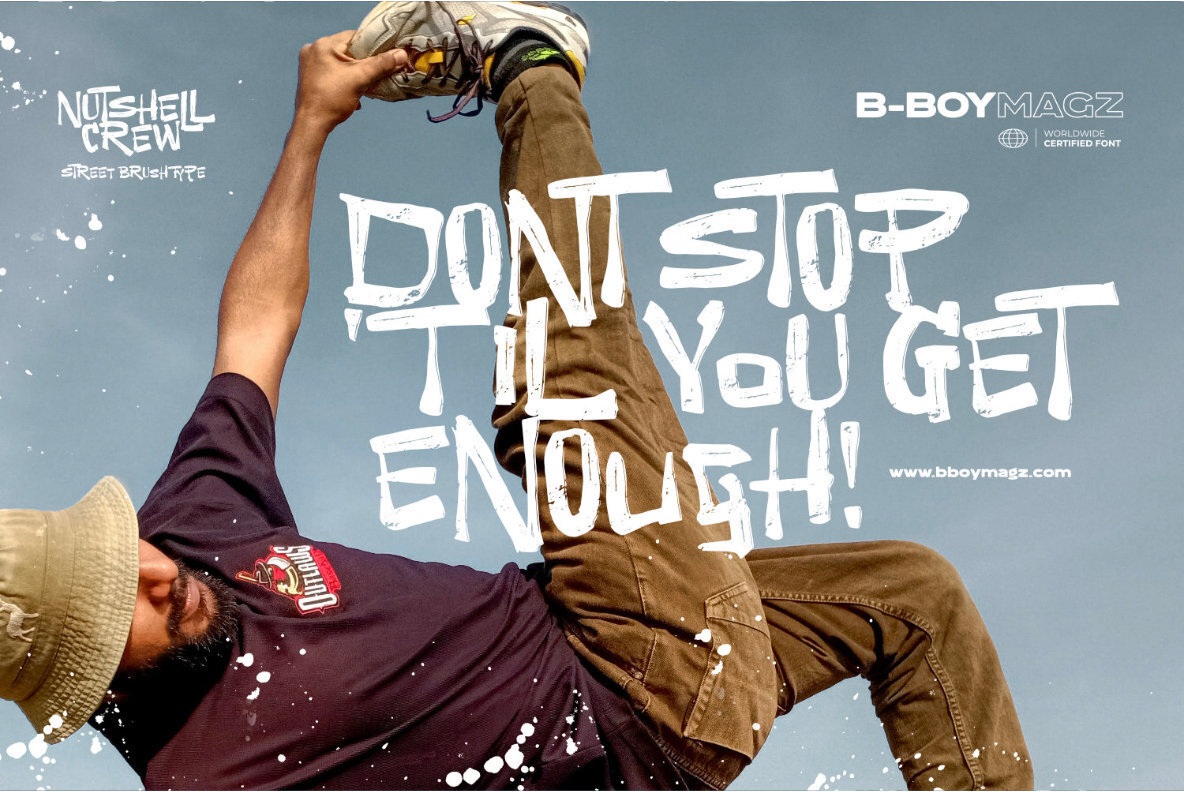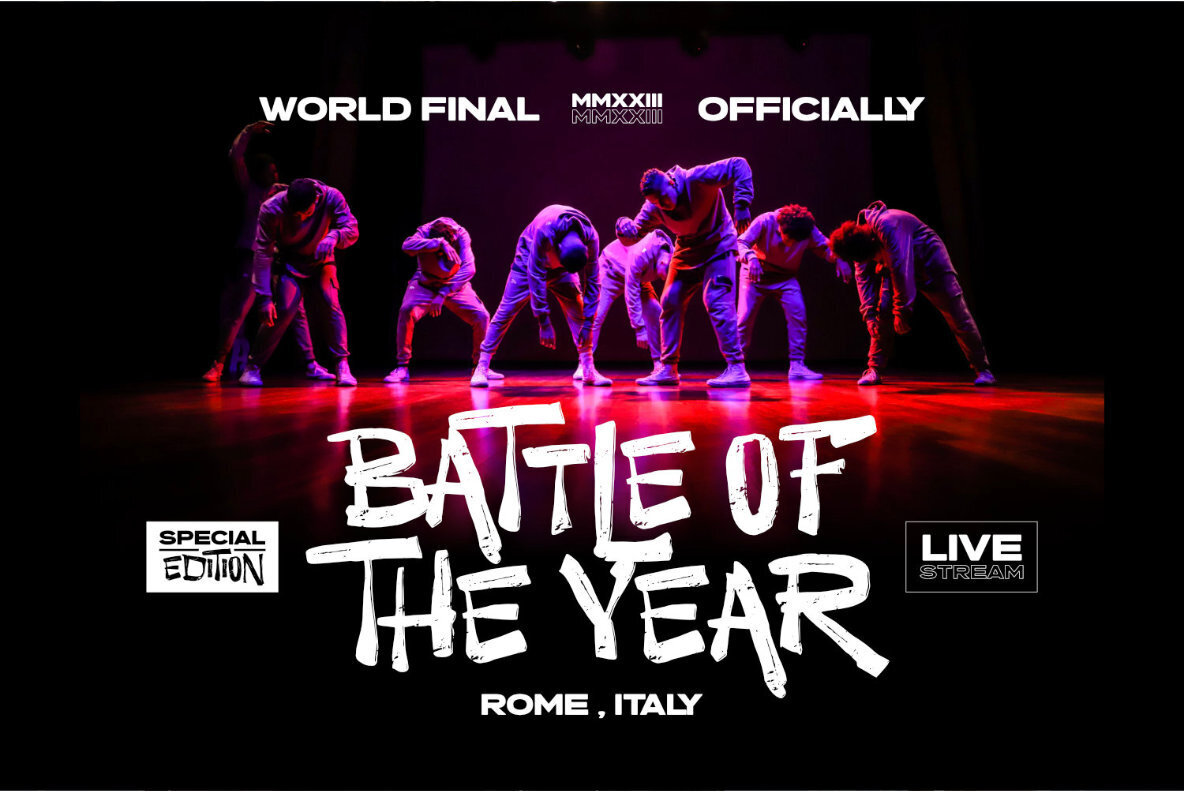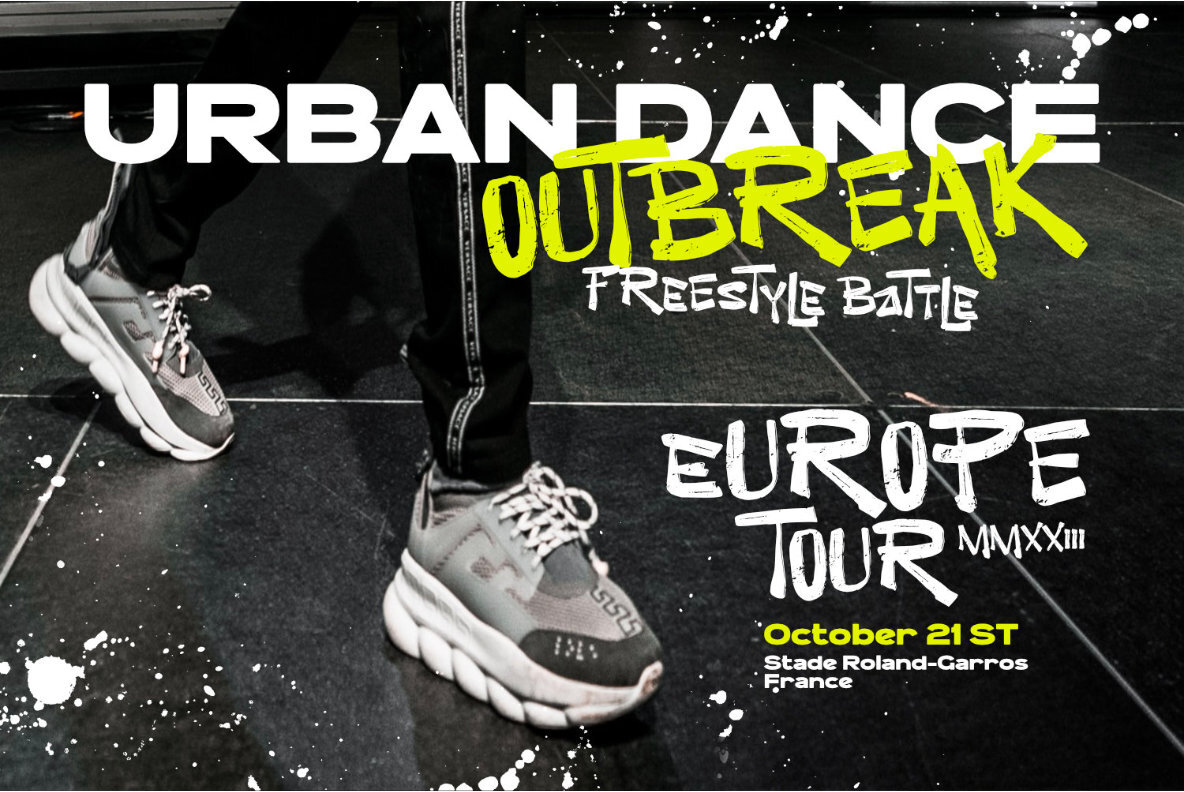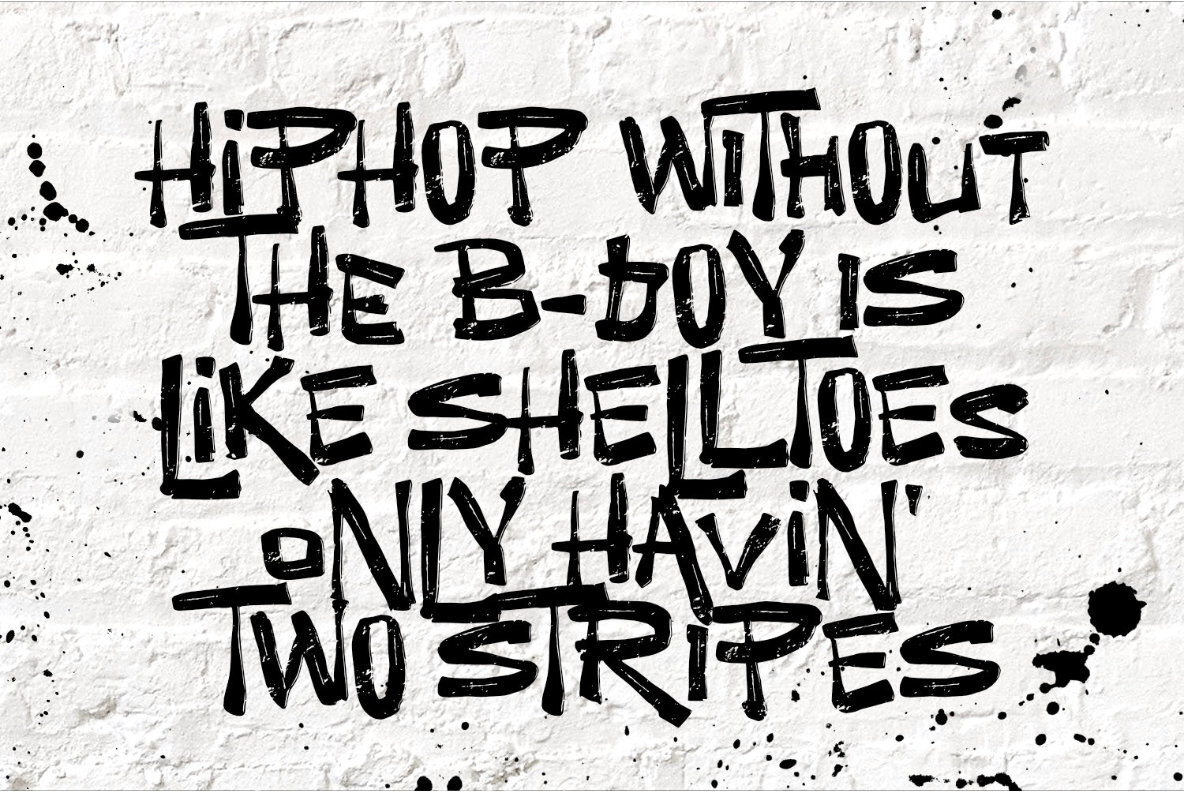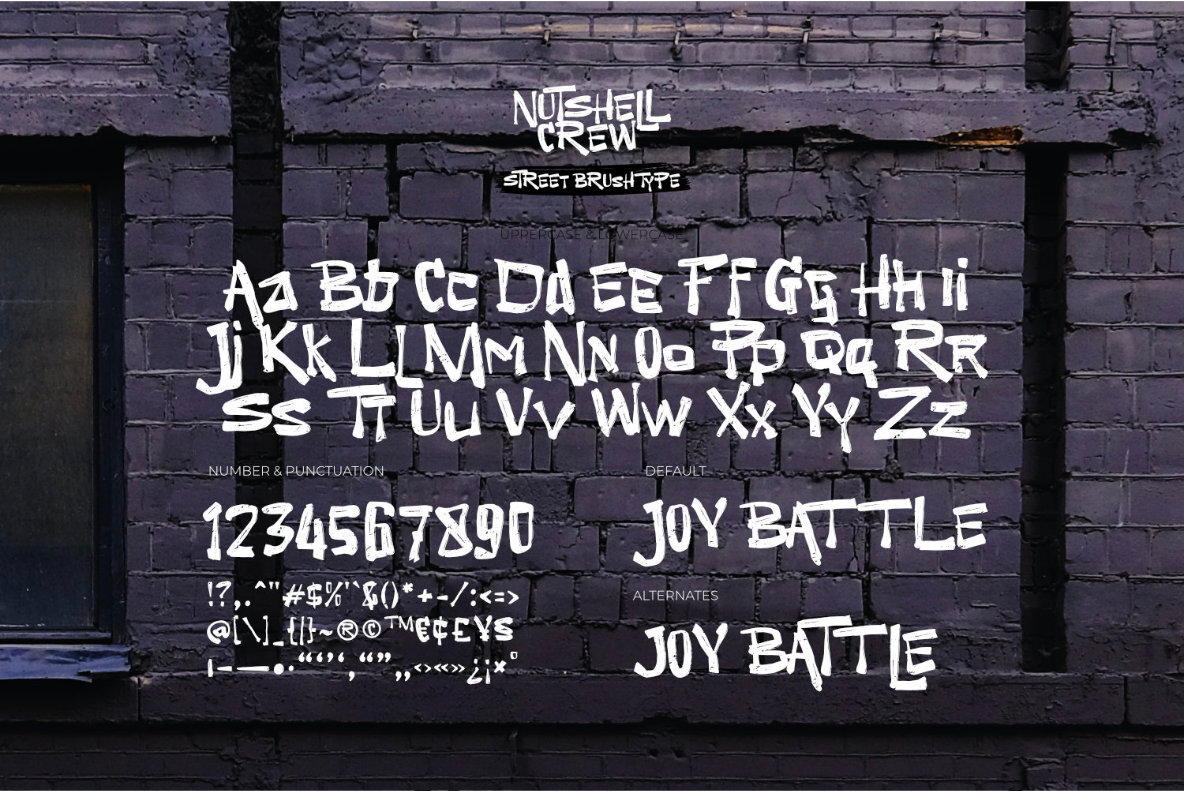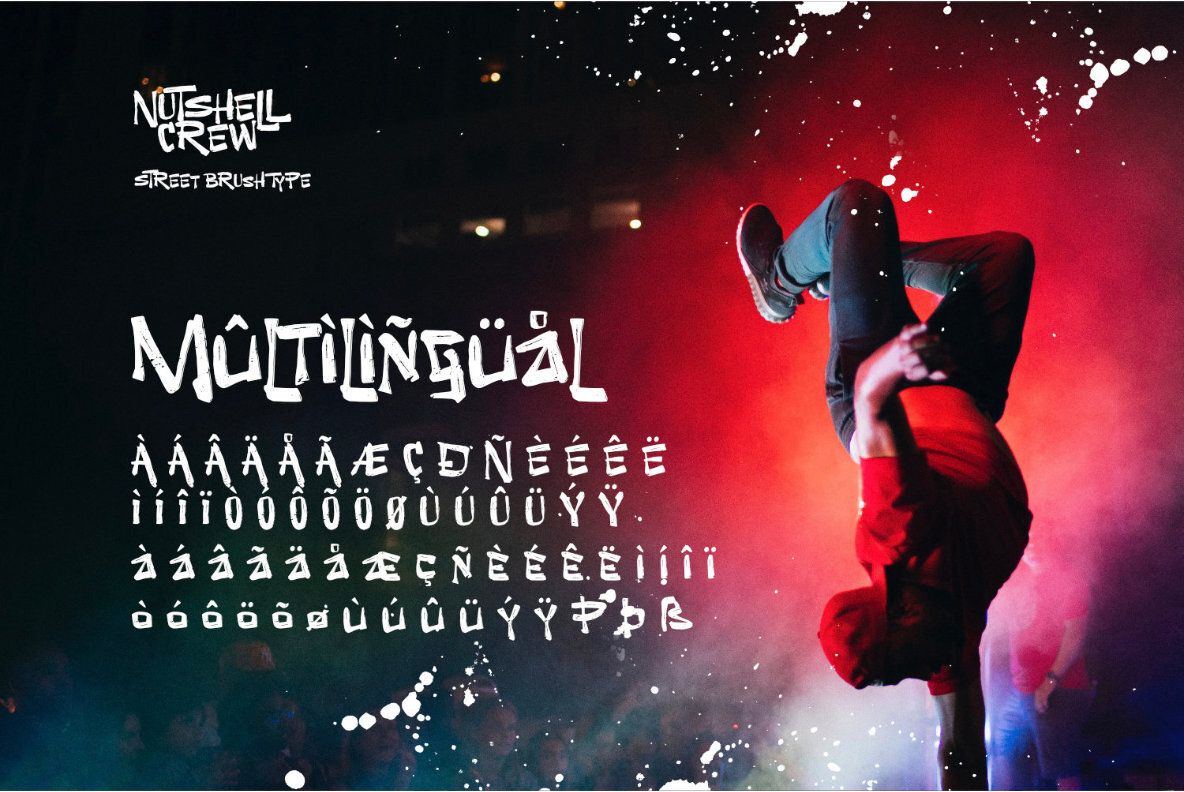
Nutshell Crew Font
Nutshell Crew Regular
Nutshell Crew is a rough handwriting type inspired by hand-drawn street brushes. A type of decorative font that features bold, brush-like strokes, often resembling calligraphy, graffiti, or hand-painted lettering. This font features a rough and edgy style, making it ideal for any urban-inspired design project with a blend of grungy and hand-drawn lines will give your words a distinctive and rebellious character, setting you apart from the crowd. The perfect one for the modern-day hipster!
This type is very suitable for making a streetwear brand, poster or magazine layout, posters, album covers, quotes, or simply as a stylish text overlay to any background image.